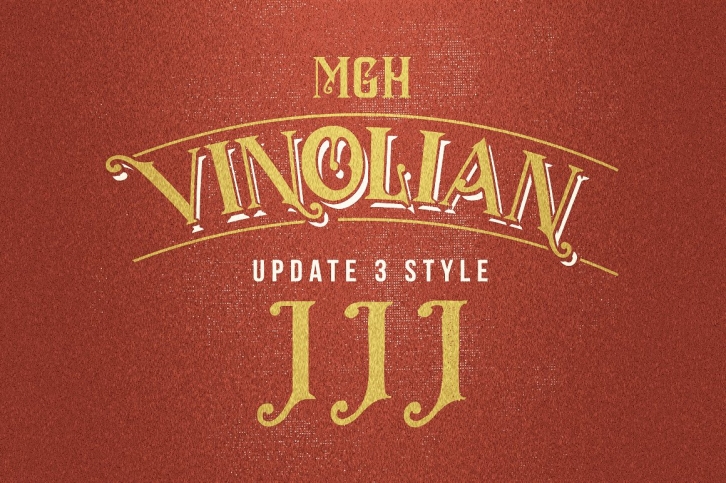
MGH vinolian HandDrawn Clean & Rough is a great font that was designed by maghrib. Imagine the amount of combinations you can create using this font! The archive is 19.58 MB and it was released on September 17, 2018. MGH vinolian HandDrawn Clean & Rough looks beautiful on wedding invitations, greeting cards, logos, posters, labels, t-shirt designs, logos, business cards and is perfect for use in ink or watercolor works, fashion, magazines, packaging and food menus, children's books and more!